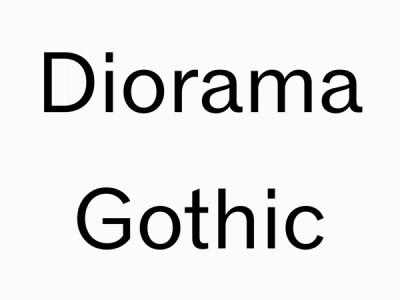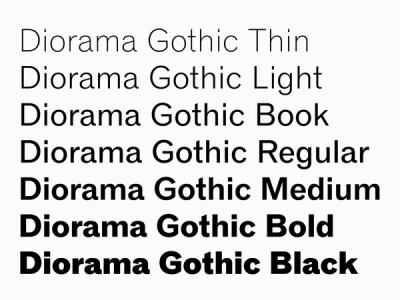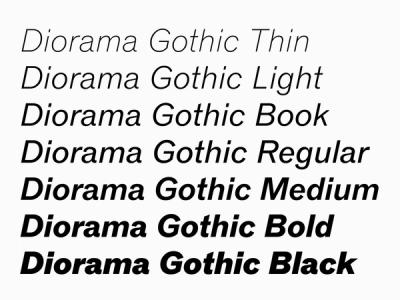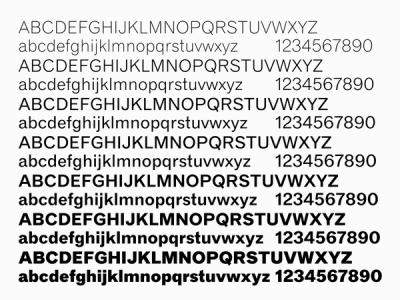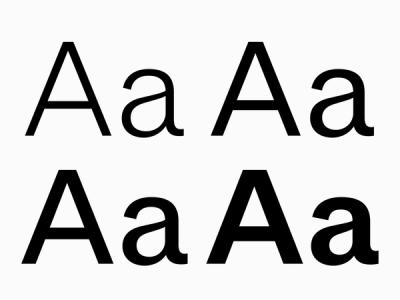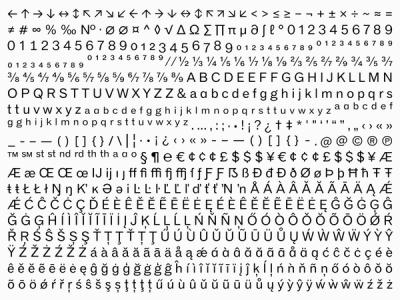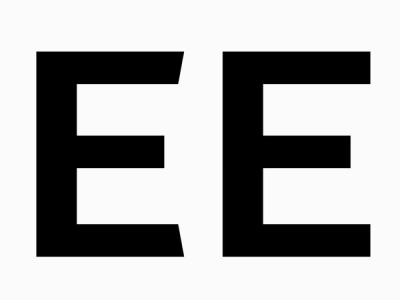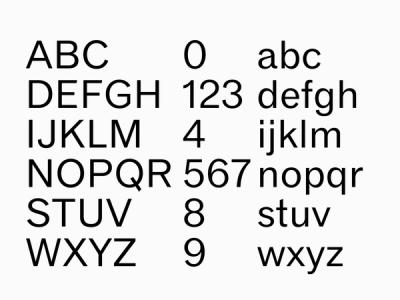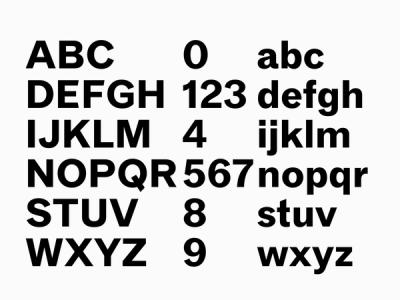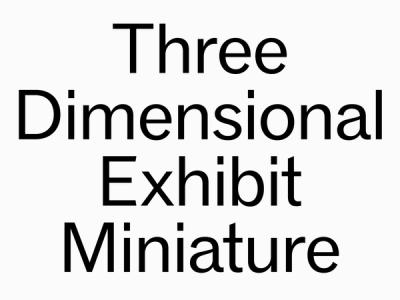
DIORAMA GOTHIC TYPEFACE
Diorama Gothic is a running text typeface deeply rooted in the early Grotesques genre also known as Gothics. It is a typographic interpretation of mixed historical sources like Monotype Grotesque series 215, 216 and 126 – a bunch of early Sans-Serifs designed by Frank Hinman Pierpont around the 1920’s. To achieve such design, our eyes gazed at the early digital era of revivals; for instance Gothic 720 (edited by Bitstream in 1993). This font family was used in the first and second issues of Revue Diorama which is why it has been a decisive inspiration in terms of design direction. As well as the previous mentioned typefaces, Diorama Gothic also inherited from Venus, a typeface released by the Bauer Type Foundry in 1907. Drawn both from past references as well as modern creations, it now comes to life as a contemporary text font.
Diorama Gothic weight’s has been carefully chosen and both “book” and “regular” styles are available for precise type settings, giving yourself the choice to find the optimized paragraph texture. The family covers Latin extended languages with more than 650 glyphs in every style and includes the latest open type functionalities —which makes it stands as a workhorse for your daily graphic design compositions. Proportions are bold and efficient in smaller sizes, offering a more comfortable reading experience compared to the previous attempts that inspired us. On a larger scale of texts, one can appreciate multiple and unique details in the letterforms. For example, the recognisable diagonal cuts that lies in E, F, T, L, Q, Z… Diorama Gothic is a perfect blend in our typefaces catalog, a contrasting balance to our identity and titling fonts.
Designer: Arnaud Chemin / Art Direction: Guillaume Sbalchiero